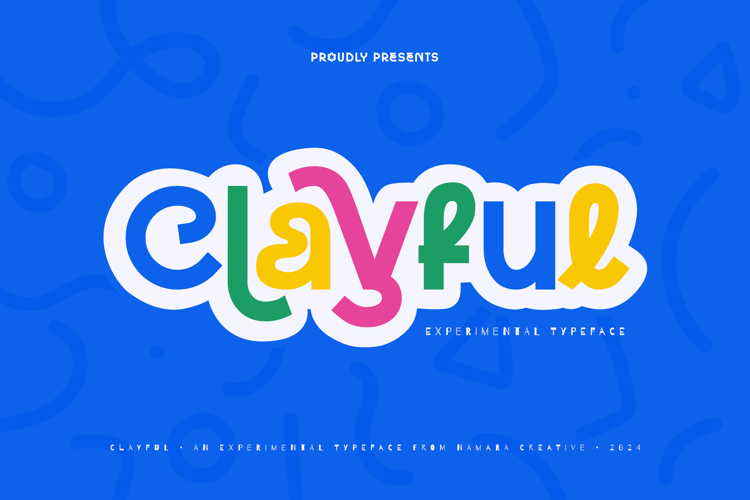
Clayful Font
Meet Clayful, the modern typeface that brings a burst of creativity to your designs. With its fresh, playful vibe, Clayful is the perfect way to stand out and make a bold statement.